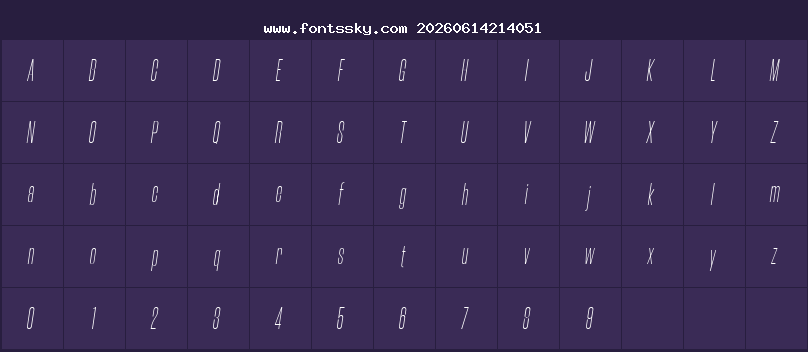
Morganite Preview
• Font Name: Morganite
• Font Style: ExtraLight Italic
• Font ID: RajeshRajput: Morganite ExtraLight Italic: 2018
• Full Font Name: Morganite ExtraLight Italic
• PostScript Name: Morganite-ExtraLightItalic
• Character Count: 355
• Designer: Rajesh Rajput
• Manufacturer: Rajesh Rajput
About Morganite.ttf
Morganite.ttf is a modern, elegant sans-serif font designed for ultimate readability and visual harmony. Perfect for branding, headlines, web design, and print materials.